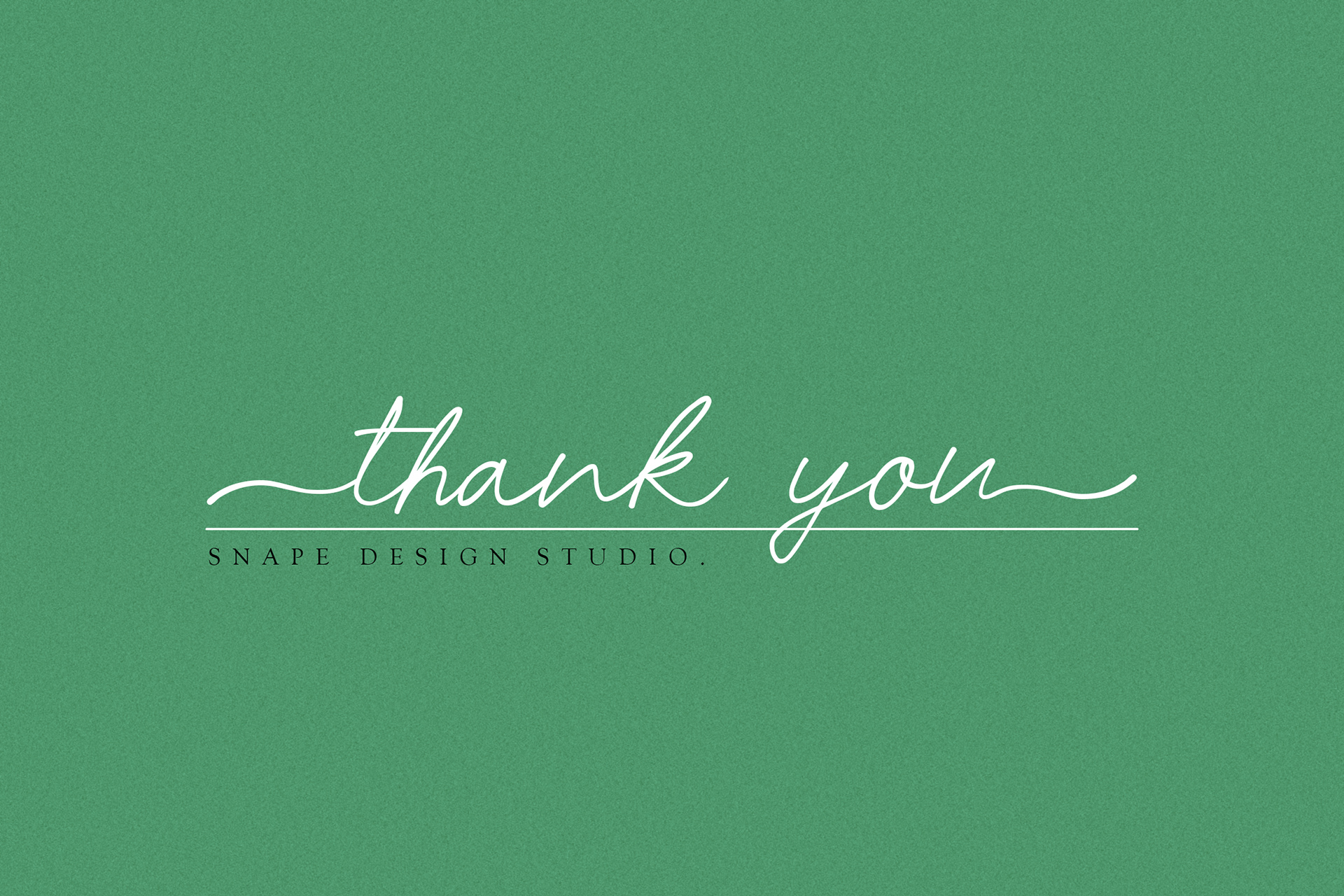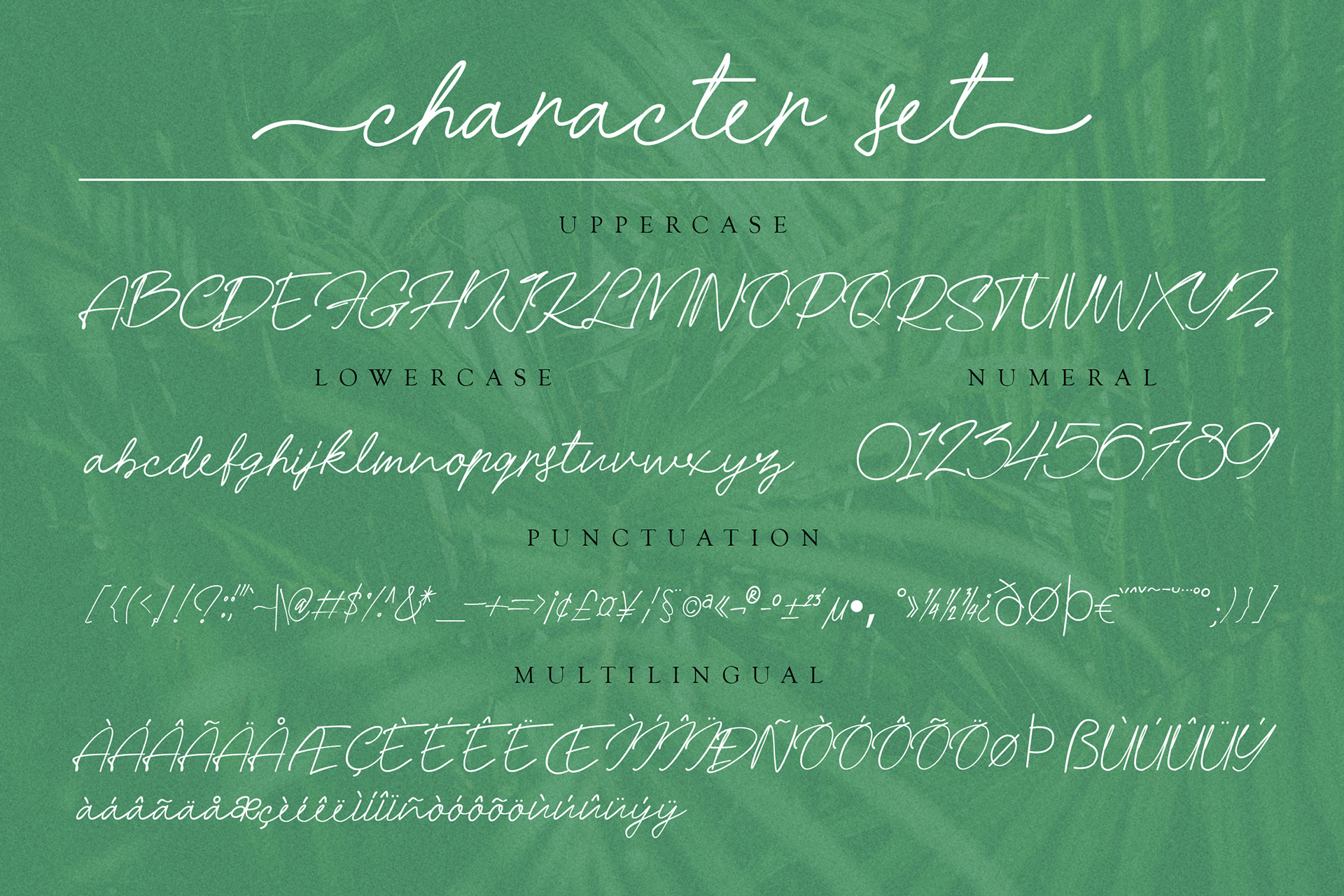
Hanamara is a handwritten script font. monoline beauty look, great for any design needs: logo, branding, modern advertising design, logos, poster quote, book/cover Title, editorial design, website/blog, card, custom mug, pillow, t-shirts, and any hand-lettered needs.
Hanamara - Handwritten Script Font design by Ario Sabrang Damar publish under Snape Design Studio